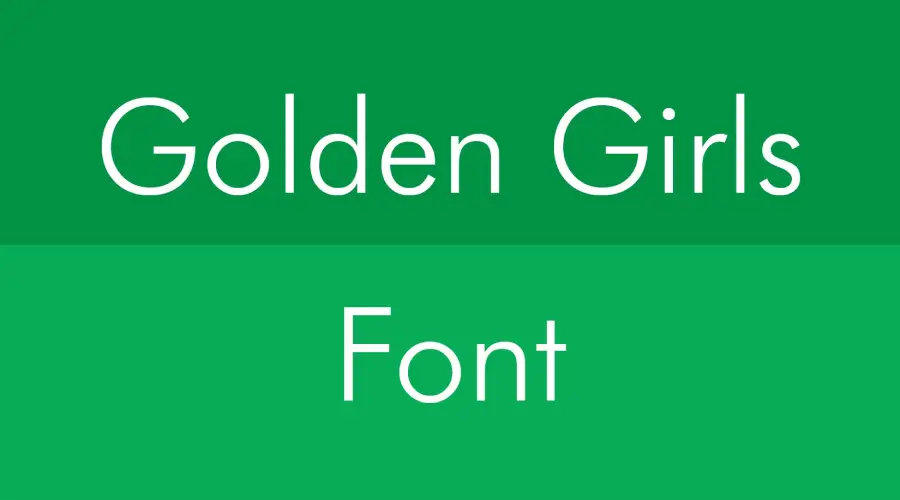
The Golden Girls Font
Are you looking for a Golden Girls font? You’re in good hands! The Golden Girls is a classic American sitcom aired on NBC from 1985 to 1992, with 180 half-hour episodes spanning seven seasons. The show features four older women who share a house in Miami, Florida, and their friendship, romance, and family adventures. The show is widely acclaimed for its humor, wit, and social commentary and has won several awards.
The show’s logo, which appears in the opening credits and promotional materials, consists of the title “The Golden Girls” in two different fonts. The title on the cover of “The Golden Girls” is presented in a geometric sans-serif font known as Futura Light, designed by Paul Renner and released in 1927. The opening sequence title uses Zapf Chancery Medium Italic and Monotype Corsiva.
The Golden Girls logo features two different fonts, Futura Light and Zapf Chancery/Monotype Corsiva. Whether you’re creating a poster, logo, or social media graphic, the font captures the nostalgia and essence of the show. Try out our Golden Girls font generator to see how your text looks in the font and unleash your creativity.